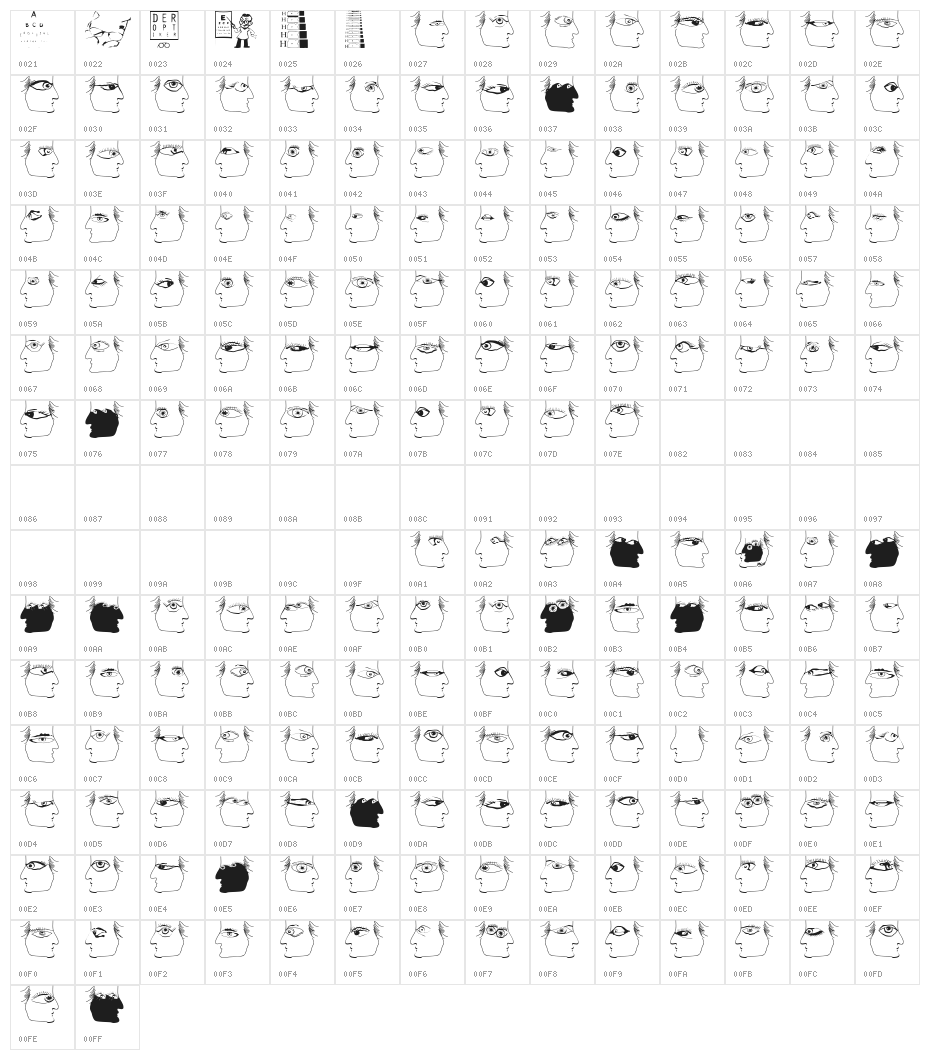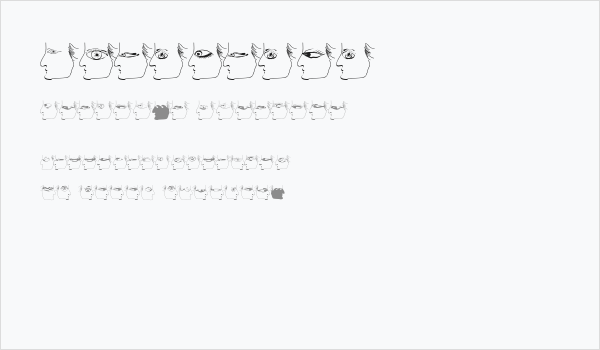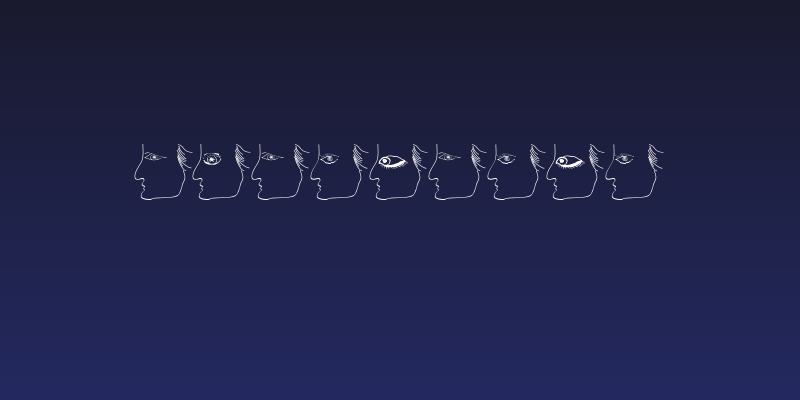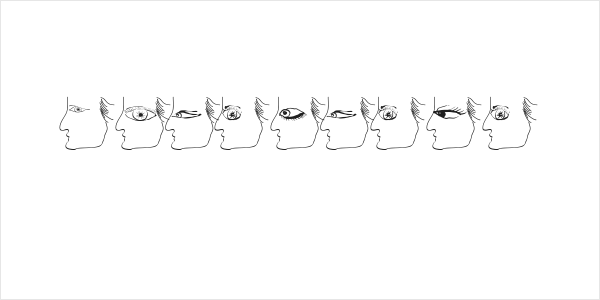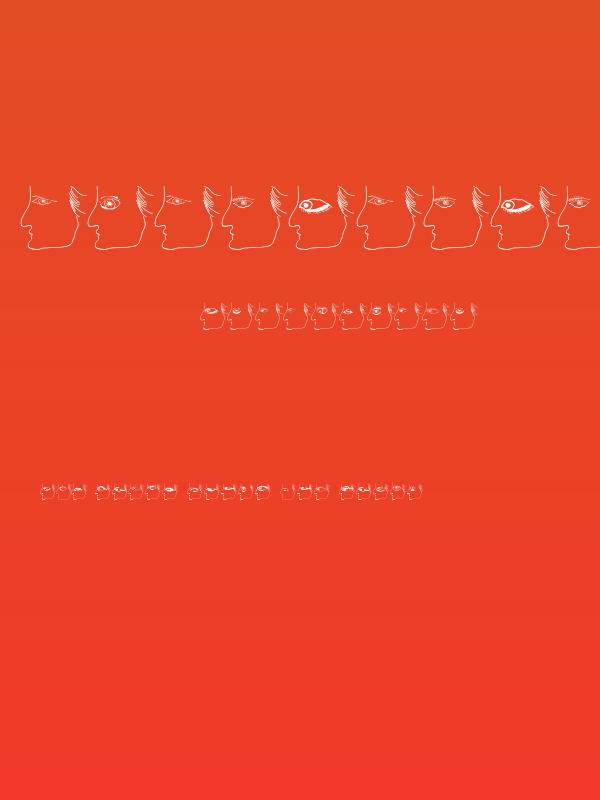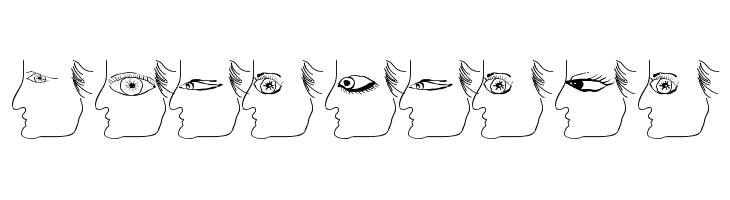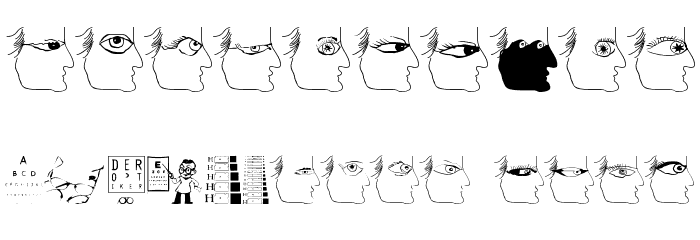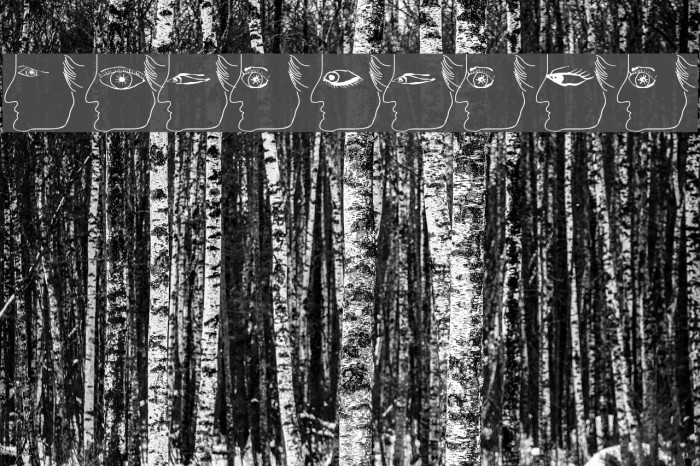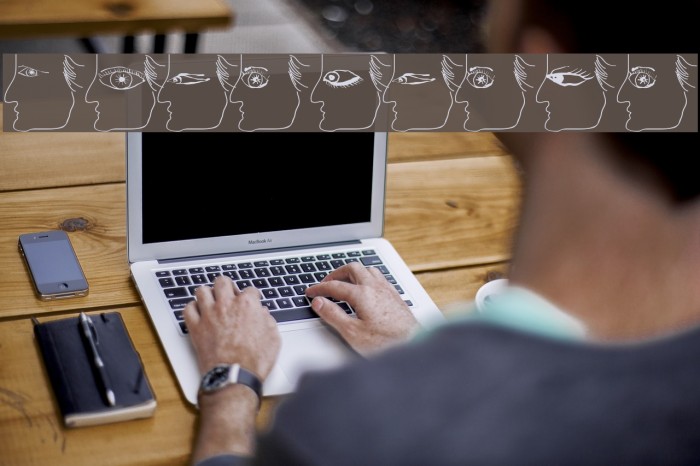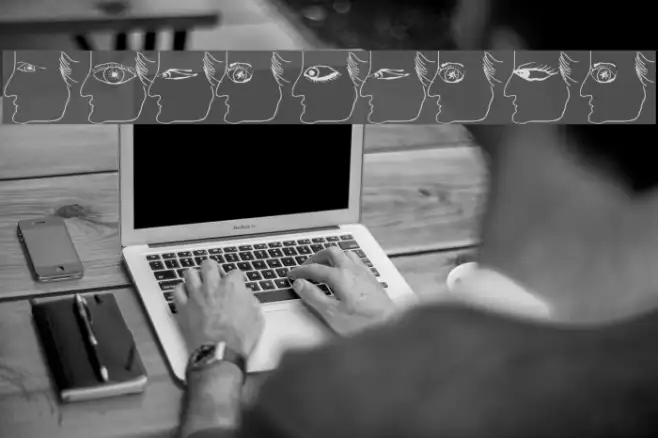
EyesTests Font
EyesTests Description
A whimsical, illustrative typeface where each character is represented by a side-profile face with varying eye expressions and details, giving a playful and hand-drawn appearance. The characters are highly stylized and not traditional letterforms, making them more pictorial than typographic.
| Overall Style | Decorative, Whimsical, Artistic |
| Use Case | Logos, Posters, Illustrative headlines, Art projects |
| Proposed Projects | Children’s books, art posters, creative branding, editorial illustrations, novelty projects. |